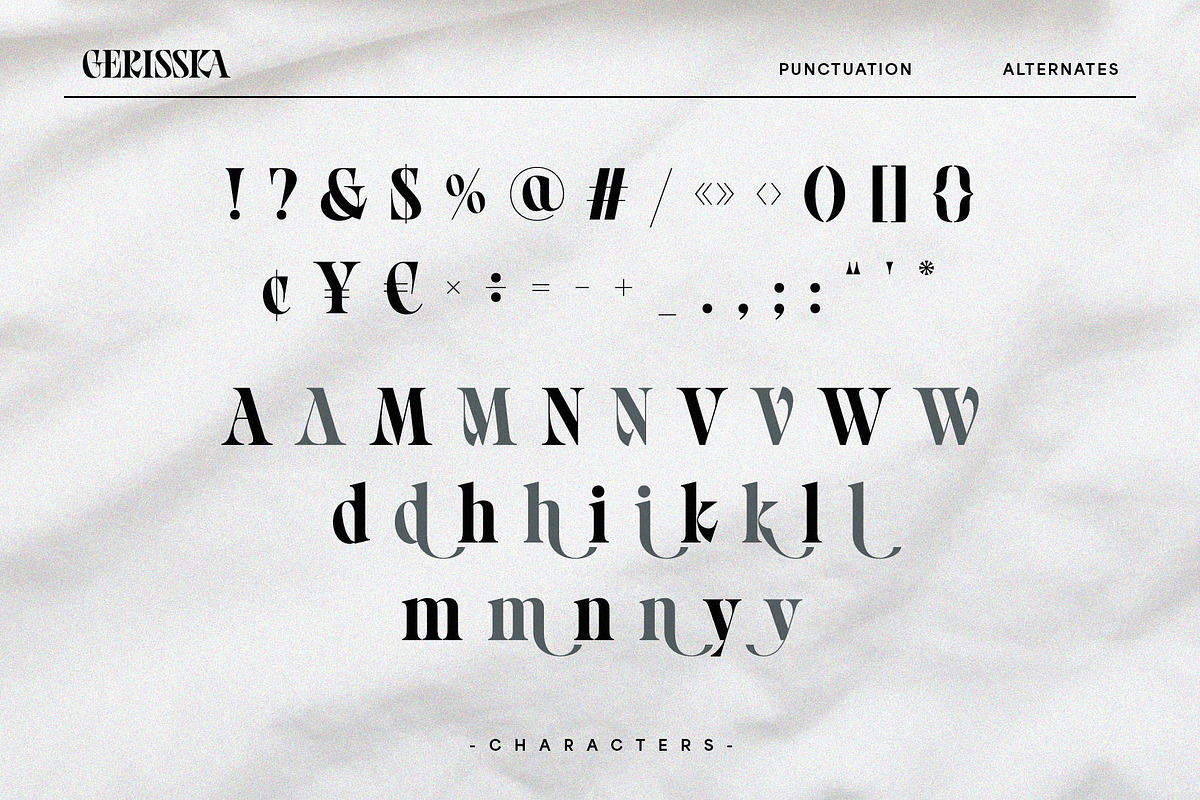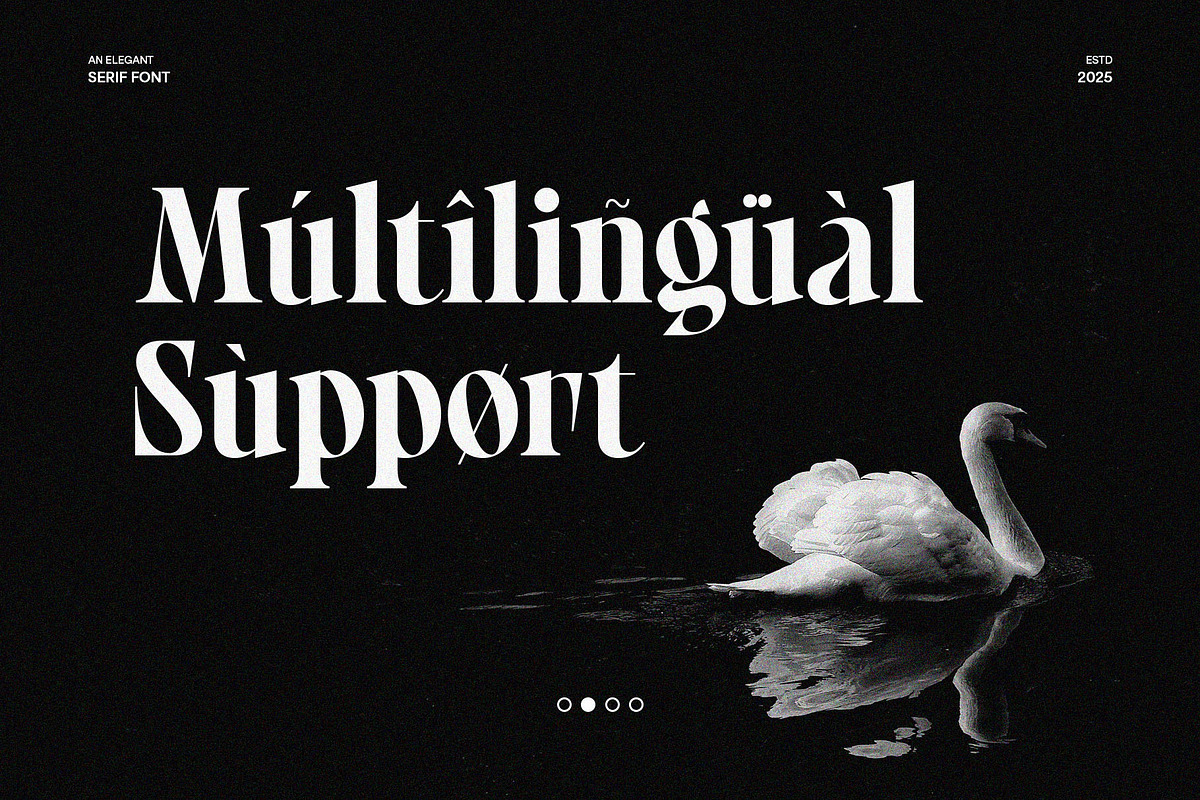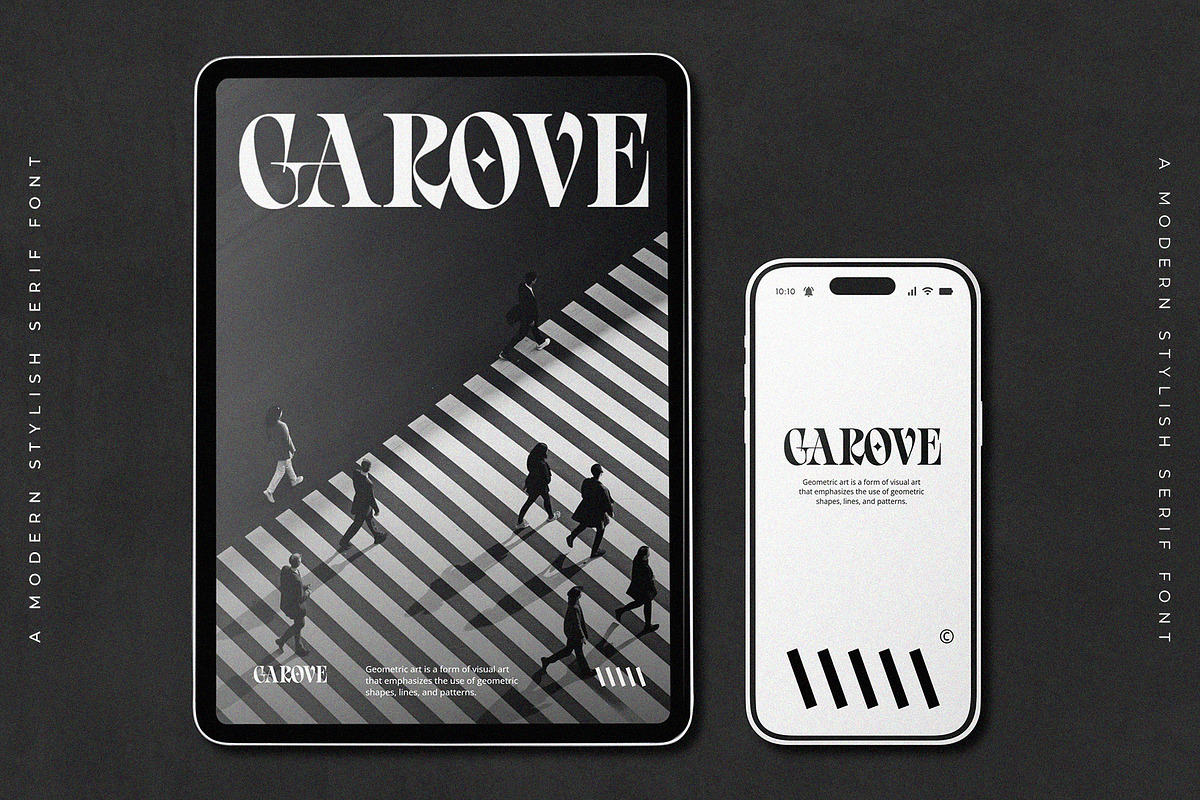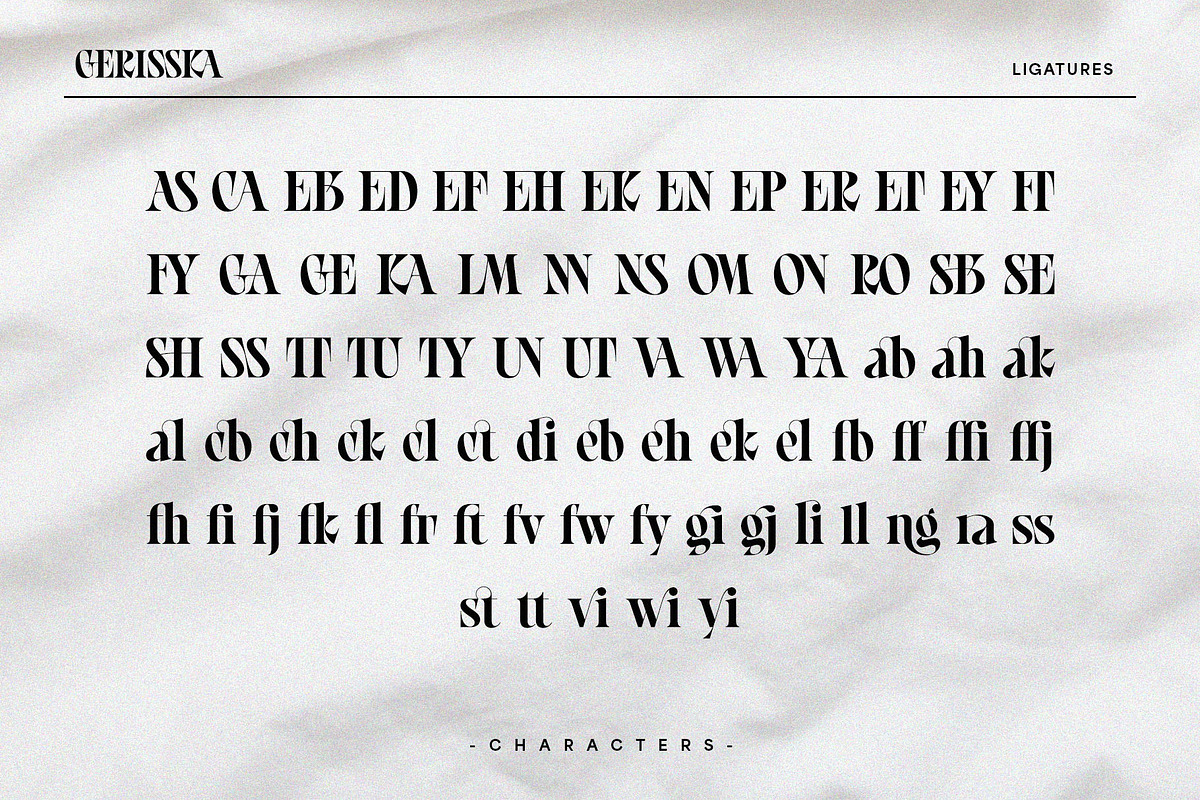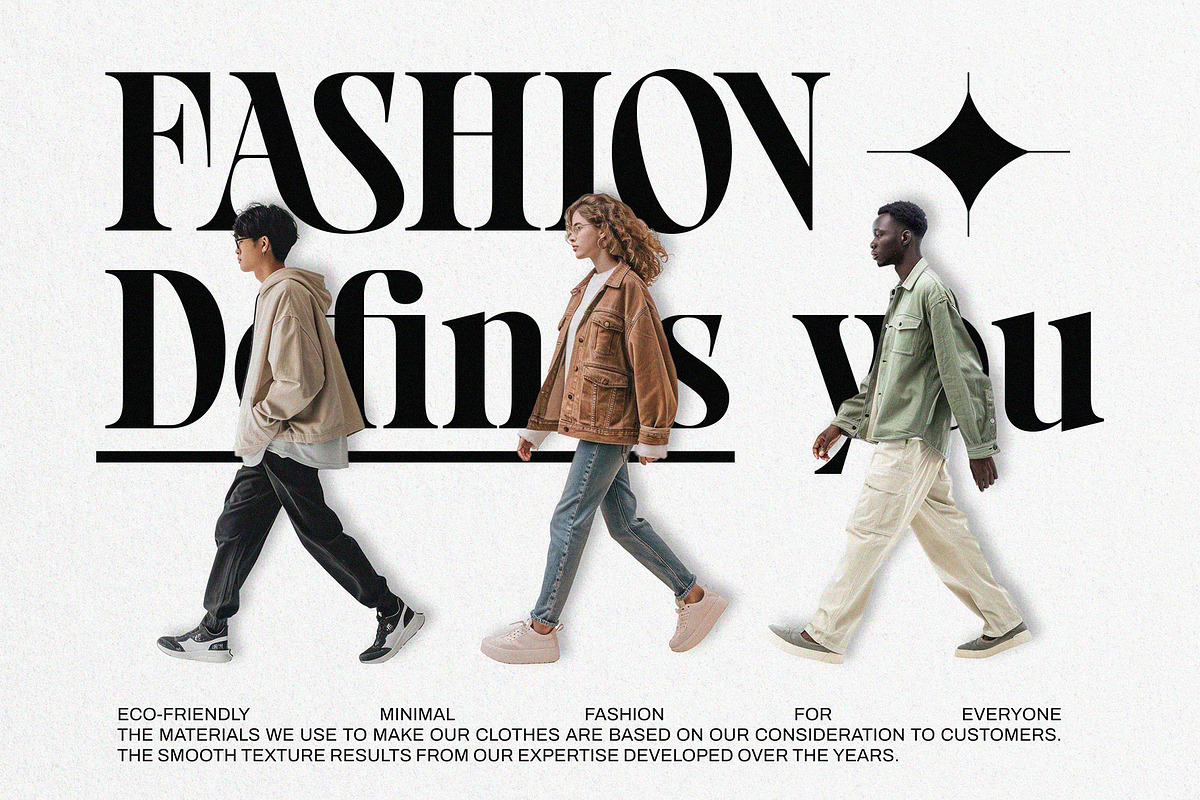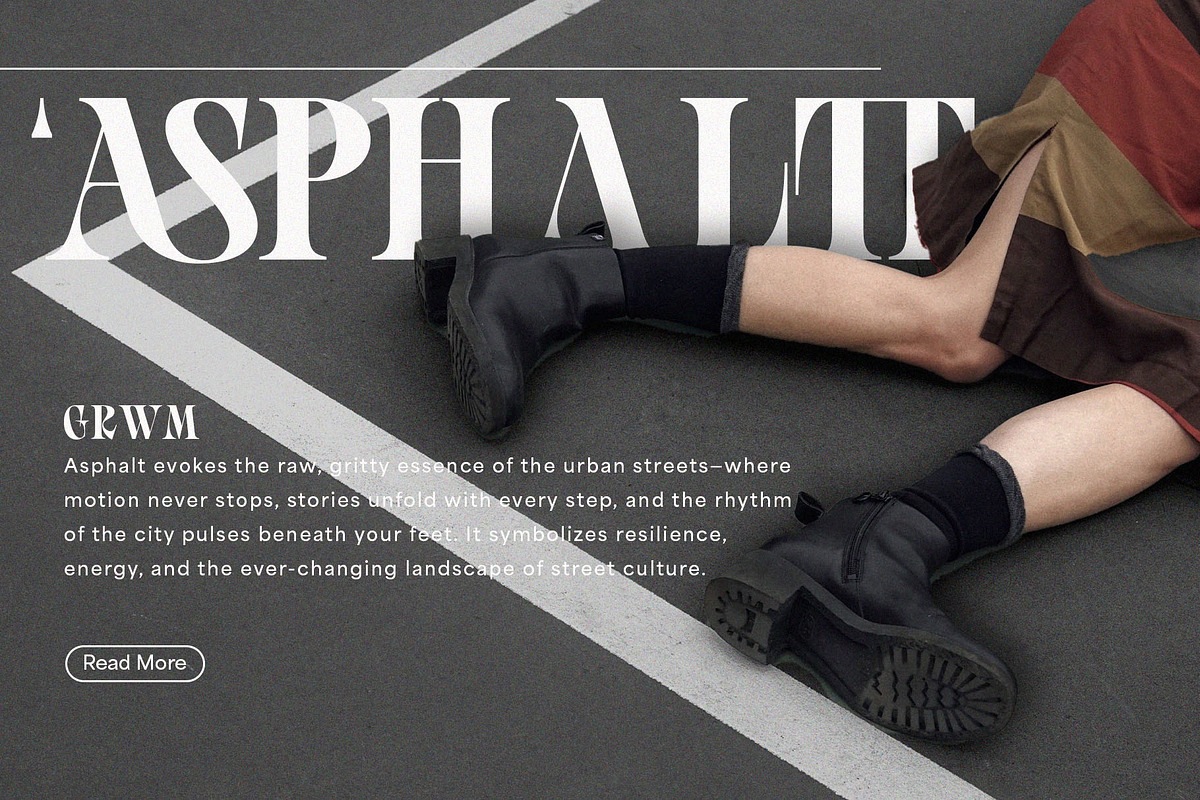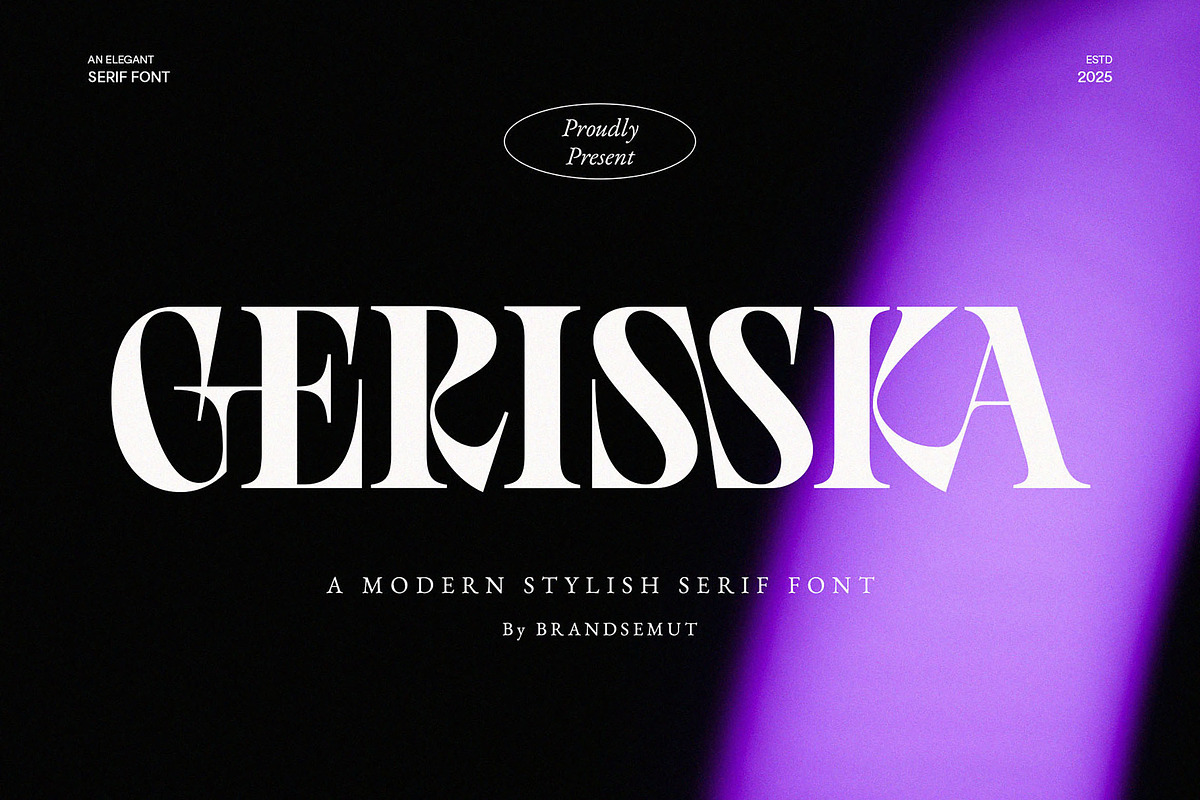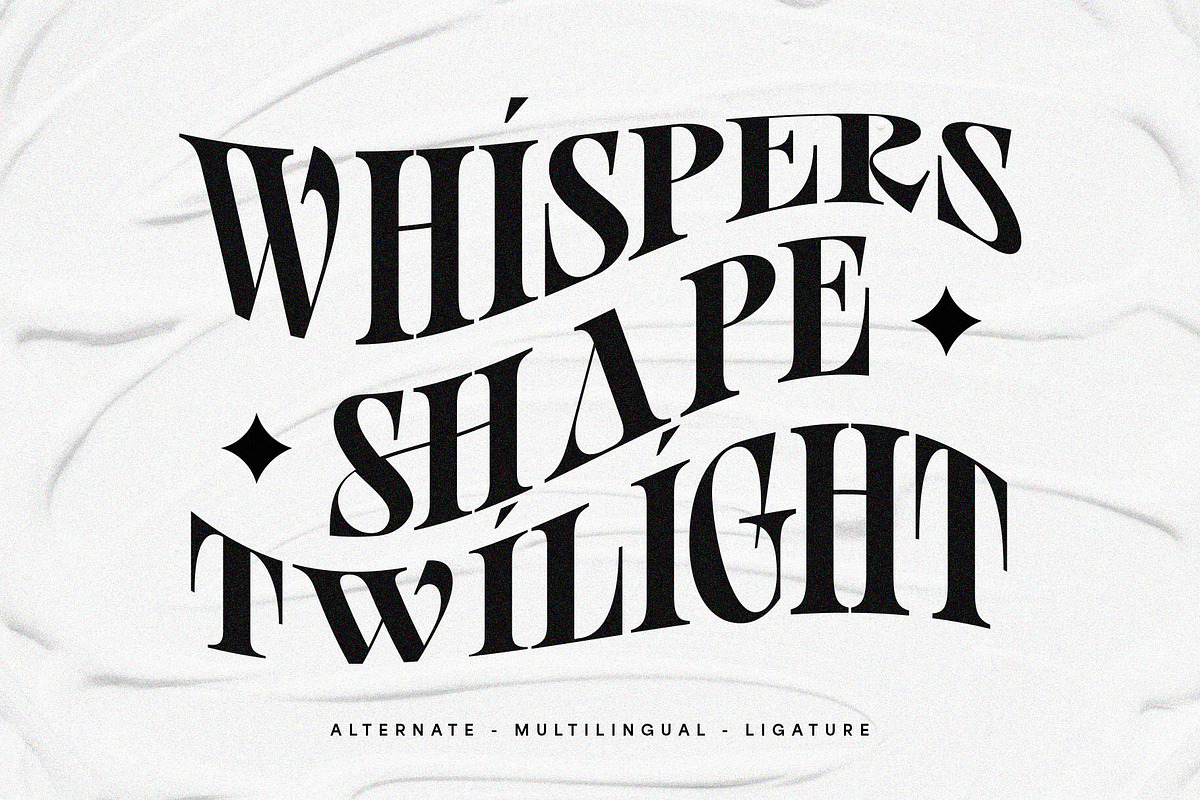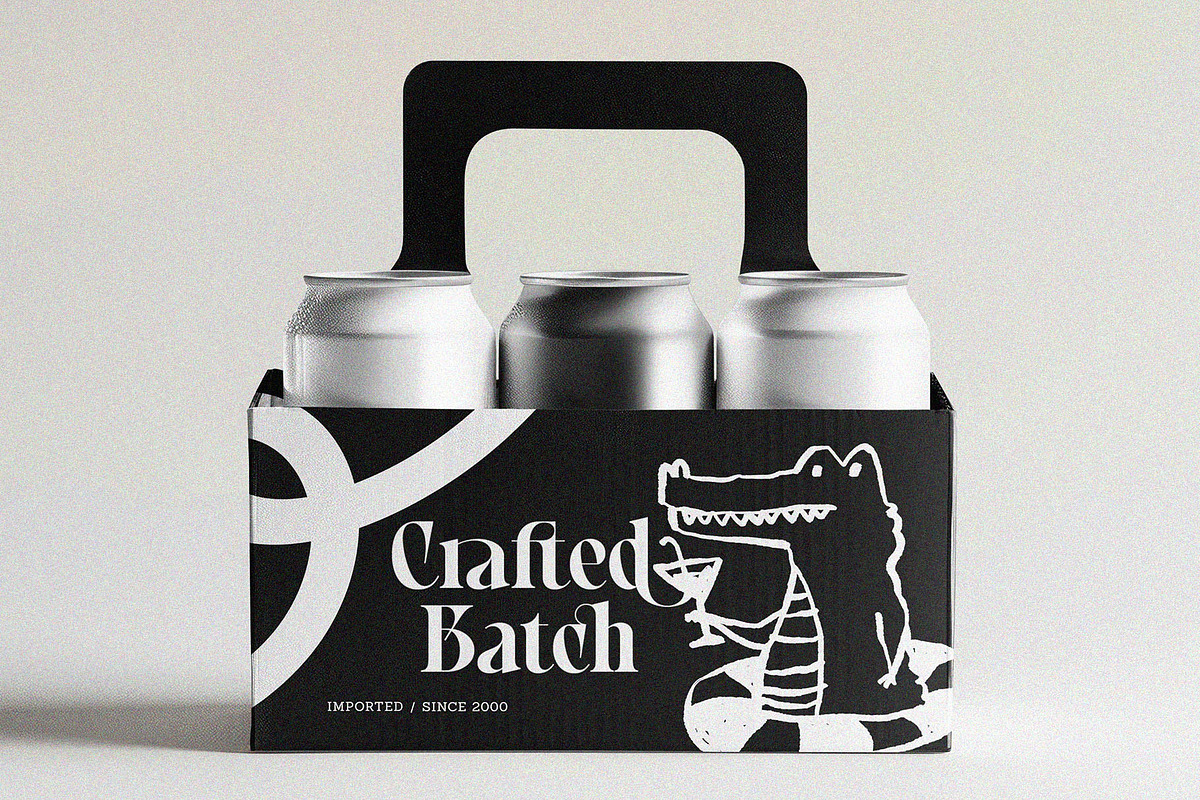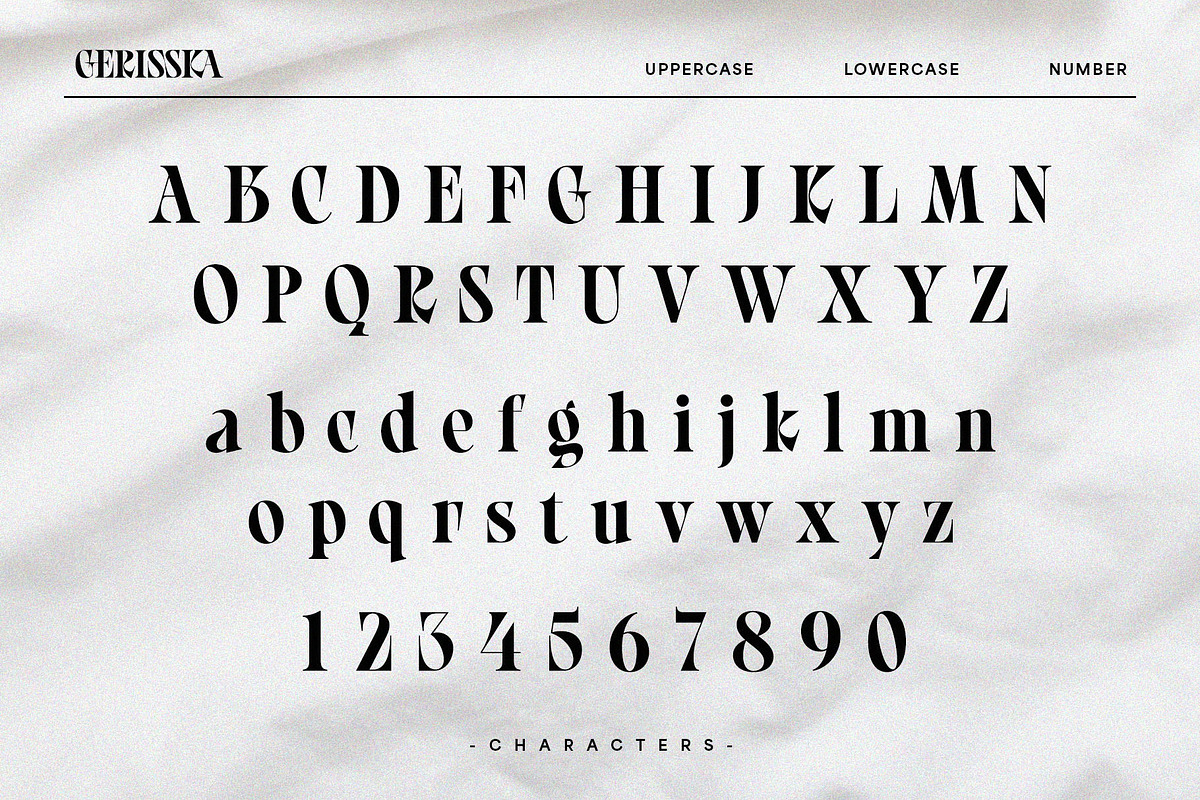
Gerisska – Elegant & Modern Stylish
Gerisska – Elegant & Modern Stylish Serif Font for Luxury Branding, Editorial Design, and Premium Visual Identity
Gerisska is a refined and modern stylish serif font that blends timeless elegance with contemporary sophistication. Designed with precision and attention to detail, Gerisska features graceful curves, sharp serifs, and unique letterform proportions that give it a distinctive personality. This typeface is perfect for luxury branding projects, editorial layouts, wedding invitations, premium packaging, fashion advertisements, and any creative work that requires a touch of class and exclusivity.
With its harmonious balance between modern design and classic serif elements, Gerisska ensures both aesthetic appeal and excellent readability across various mediums. The font is versatile enough to be used in large display settings, such as magazine headlines, posters, and billboards, while also maintaining legibility in smaller text sizes for print and digital designs.
Gerisska includes a full set of uppercase and lowercase letters, numerals, punctuation, and special characters. Its high contrast strokes and stylish alternates allow designers to experiment with creative typography layouts, adding a unique flair to any project. Whether you are working on a minimalist brand identity, a bold fashion campaign, or an elegant product label, Gerisska delivers a professional and polished result.
This font is an excellent choice for designers seeking a luxurious, editorial-inspired typeface that can adapt to a wide range of design aesthetics. It is ideal for brands in the beauty, fashion, jewelry, hospitality, and lifestyle industries that want to project sophistication and timeless style.
- Elegant serif design with modern styling
- Suitable for luxury branding, editorial, and creative projects
- Perfect for both print and digital applications
- Complete character set with punctuation and multilingual support
- Ideal for headlines, logos, invitations, and packaging design
With Gerisska, you can create designs that exude elegance, sophistication, and premium quality—making it an ideal choice for designers who prioritize high-end aesthetics.